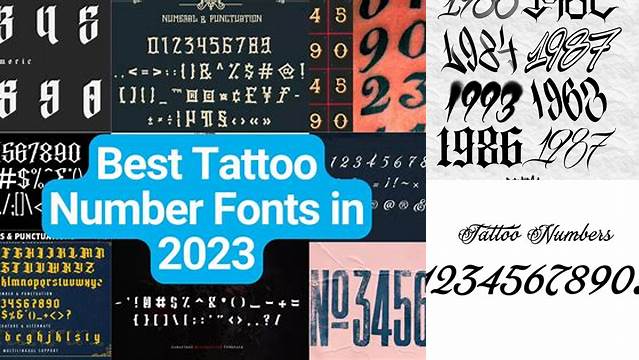
Cool Tattoo Fonts & Number Generators For Your Ink
Hey everyone! Are you ready to dive into the awesome world of tattoos? If you're anything like me, you've probably spent countless hours scrolling through Instagram, Pinterest, or maybe even just your own imagination, dreaming up the perfect ink. And, a huge part of that process? Picking the right tattoo fonts and numbers! This is where we will use a tattoo fonts generator numbers to give you ideas. Whether you're a seasoned tattoo veteran or a newbie just starting to explore, finding the perfect font can be a real adventure. It's not just about what looks cool; it's about what feels right, what tells your story. The right font can elevate your tattoo from 'meh' to a total masterpiece. So, let's get into it, shall we? We'll explore the best tattoo font generators, dive into popular font styles, and chat about how to choose the perfect numbers to make your tattoo truly unique. Get ready to level up your tattoo game! Because finding the right font can be a real adventure. It's not just about what looks cool; it's about what feels right, what tells your story. The right font can elevate your tattoo from 'meh' to a total masterpiece.
H2: Unveiling the Best Tattoo Font Generators
Alright, let's get down to business: finding those awesome tattoo font generators! These online tools are pure gold when you're trying to visualize your tattoo ideas. They let you experiment with different fonts, see how your chosen numbers or words will look, and save you from potential regret down the line. We all want to find the perfect tattoo fonts generator numbers that will suit us. The cool thing is that these generators are usually super easy to use, and many are free. You just type in your text, choose a font, and boom! You've got a preview of your future ink. Seriously, guys, it's like having a tattoo design studio right at your fingertips. Some generators even let you customize the size, spacing, and other details to get a really accurate representation. I'm telling you, it's a must-try for anyone serious about getting a tattoo. One of the first things to look for in a tattoo fonts generator numbers is a wide selection of fonts. You want options! From classic serifs to edgy scripts, the more choices you have, the better. Look for generators that offer a range of styles, like vintage, modern, tribal, or even calligraphy fonts. Another important feature is the ability to preview your text in different sizes and orientations. This helps you understand how the font will look on your skin, and how it will fit in the space you have in mind. You'll also want to find a generator that lets you save and share your designs, so you can easily show your tattoo artist or friends and get their opinions. Don't underestimate the value of feedback! Finally, it's always a bonus if the generator provides information about the font, like its origin or common uses. This can help you make a more informed decision and choose a font that really resonates with you. Remember, the best tattoo font generator is the one that meets your specific needs. Do a little research, try out a few different options, and find the one that makes your creative vision come to life. Once you've found a generator you like, start playing around with different fonts and see what sparks your interest. You might be surprised at the cool combinations you come up with.
H3: Top-Rated Tattoo Font Generators You Need to Try
Okay, guys, let's get down to the nitty-gritty: some specific tattoo font generators that you need to check out. I've done some digging and found a few that are highly recommended, easy to use, and offer a fantastic selection of fonts. These are the tools that will help you bring your tattoo ideas to life. First up, we have FontSpace. It is a real powerhouse, with a massive library of fonts, including tons of options perfect for tattoos. It’s got a clean, user-friendly interface that makes it easy to browse and preview fonts. You can filter your search by style, designer, and even keywords to find exactly what you're looking for. FontSpace also lets you download the fonts to your computer, which is super helpful if you want to use them in other design software. Another great option is DaFont. It’s another hugely popular site with a huge variety of fonts. What's cool about DaFont is that it has a dedicated section for tattoo fonts, making your search a breeze. You'll find fonts categorized by style (e.g., script, gothic, modern, etc.) and by theme (e.g., Celtic, oriental, etc.). DaFont also has a preview feature that lets you see how your text will look in different sizes and colors. Then we have UrbanFonts. UrbanFonts offers a curated collection of tattoo fonts, with a focus on unique and artistic styles. You'll find everything from elegant scripts to bold, tribal designs. The site has a clean design and is easy to navigate. UrbanFonts also provides information about each font, including its license and designer. Finally, don't forget about Inkwell! It’s a specialized platform that focuses on custom tattoo designs. While it doesn't offer a font generator per se, it does connect you with talented artists who can create custom fonts tailored to your exact needs. This is a great option if you're looking for a truly unique and personalized tattoo design. With these generators, the possibilities are endless! Take your time, experiment, and don't be afraid to think outside the box. Your perfect tattoo font is out there waiting to be discovered.
H2: Exploring Popular Tattoo Font Styles
Alright, so you've got your generator ready to go, but where do you start? Let's take a look at some of the most popular tattoo font styles out there. Knowing a bit about these styles will help you narrow down your choices and find a font that speaks to you. We will use a tattoo fonts generator numbers to give us inspiration to see the various styles. First up, we have script fonts. These fonts are all about elegance and personalization. They often mimic handwriting and can give your tattoo a very personal touch. Script fonts are perfect for names, quotes, or phrases that you want to feel intimate and meaningful. They come in a wide range of styles, from delicate, flowing calligraphy to bold, edgy brushstrokes. Next up, serif fonts. These are the classic, traditional fonts you see everywhere. Serifs are the little strokes at the end of each letter. They convey a sense of history, sophistication, and timelessness. Serif fonts are a great choice if you're looking for a tattoo that's simple, clean, and easy to read. Another option is sans-serif fonts. Sans-serif fonts are the opposite of serif fonts; they don't have those little strokes at the end of each letter. They're modern, clean, and minimalist. Sans-serif fonts are a great choice if you want a tattoo that's simple and easy to read. They're a good choice for bold statements, names, and dates. Then we have gothic fonts. These are the fonts that are inspired by medieval lettering. They're bold, dramatic, and often used for tattoos with a dark, rebellious vibe. Gothic fonts can be a great choice if you want to make a strong statement. There are also tribal fonts. These are inspired by traditional tribal art. They're bold, often intricate, and convey a sense of heritage and identity. Tribal fonts can be a great choice if you're looking for a meaningful tattoo that honors your cultural background. Finally, don't forget about hand-drawn fonts. These fonts have a raw, authentic feel. They look like they've been drawn by hand, adding a unique, personal touch to your tattoo. Hand-drawn fonts are great for creating a one-of-a-kind design. Remember, the best font style is the one that best reflects you. Consider your personality, your interests, and the message you want to convey. Play around with different styles until you find the perfect match.
H3: Deciphering the Charm of Script Fonts for Tattoos
Let's get up close and personal with script fonts, shall we? These fonts have a special place in the tattoo world, and for good reason! Script fonts are all about personality and personalization. They're designed to mimic handwriting, giving your tattoo a unique and intimate feel. Script fonts come in a huge variety of styles. Some are delicate and flowing, like elegant calligraphy, while others are bold and edgy, with dramatic brushstrokes. The key to choosing the right script font is to think about the message you want to convey. If you want something romantic and feminine, a delicate script might be perfect. If you're going for a more rebellious vibe, a bolder, more stylized script could be a better fit. Script fonts are often used for names, quotes, and meaningful phrases. The idea is to capture the essence of the person or idea that you're honoring. When choosing a script font, it's also important to consider the size and placement of your tattoo. A delicate script might look great on your wrist or ankle, while a bolder script might be more suitable for a larger area, like your back or arm. The spacing between the letters is also important. The right spacing can make the font easier to read and enhance its overall aesthetic appeal. Another thing to consider is the readability of the script font. While it's great to have a unique and stylized font, you also want your tattoo to be legible. Make sure the letters are clear and easy to read, especially if you're getting a quote or a name. It's a good idea to try out your chosen script font on a tattoo fonts generator numbers to see how it looks. Experiment with different sizes and placements to get a feel for how the font will look on your skin. That way, you’ll be able to decide if that script font is the one for you. Don't be afraid to experiment! Try out different script fonts and see what feels right. The right script font will make your tattoo a true work of art.
H2: The Timeless Appeal of Serif Fonts
Now, let's talk about serif fonts, those timeless classics that never go out of style! Serif fonts are those fonts with the little